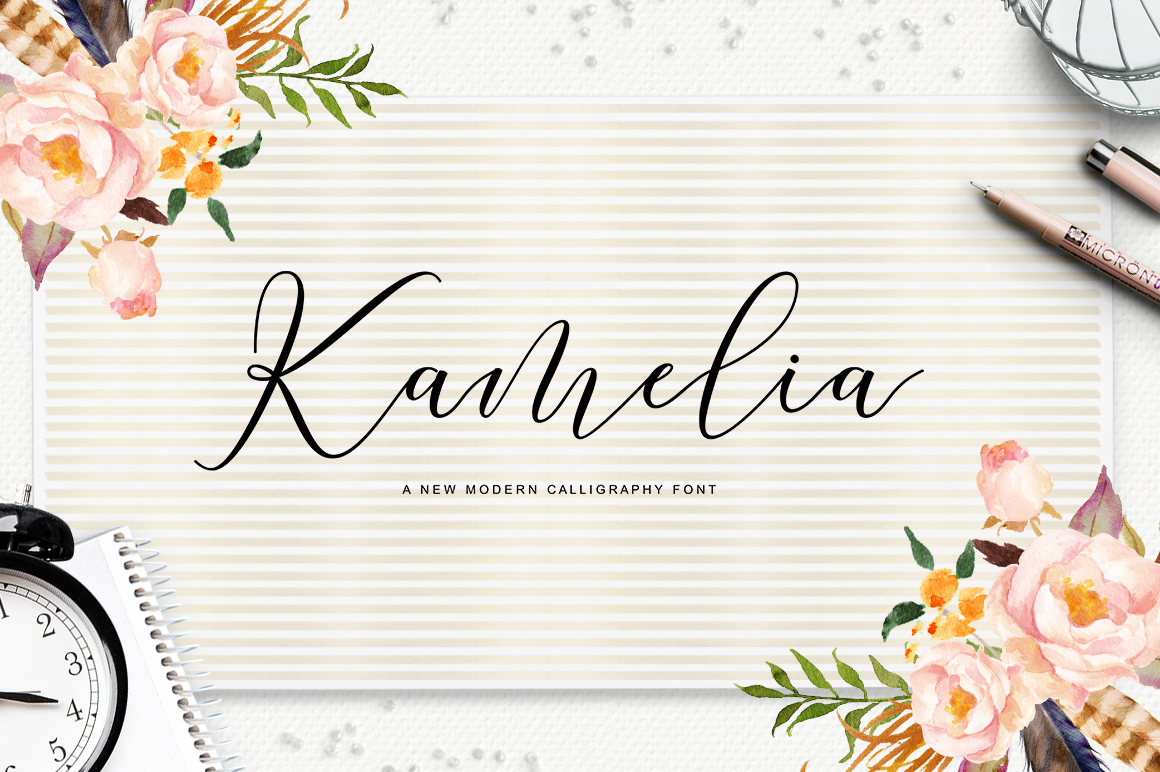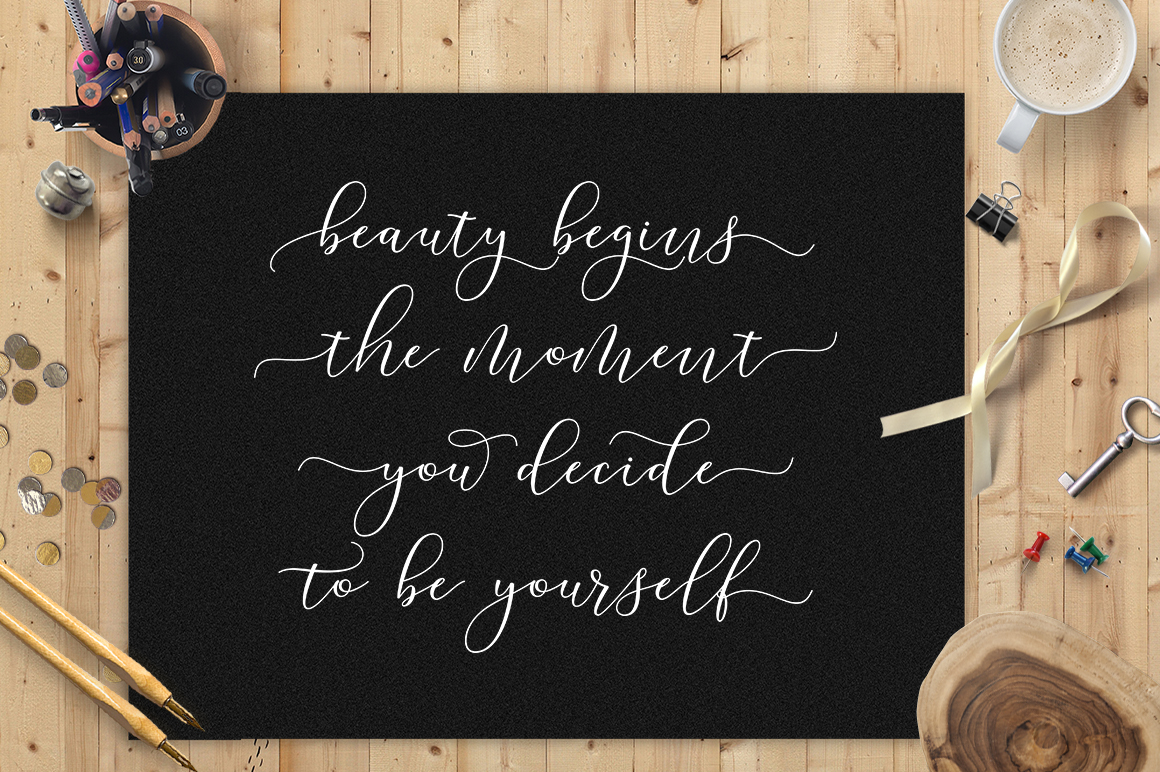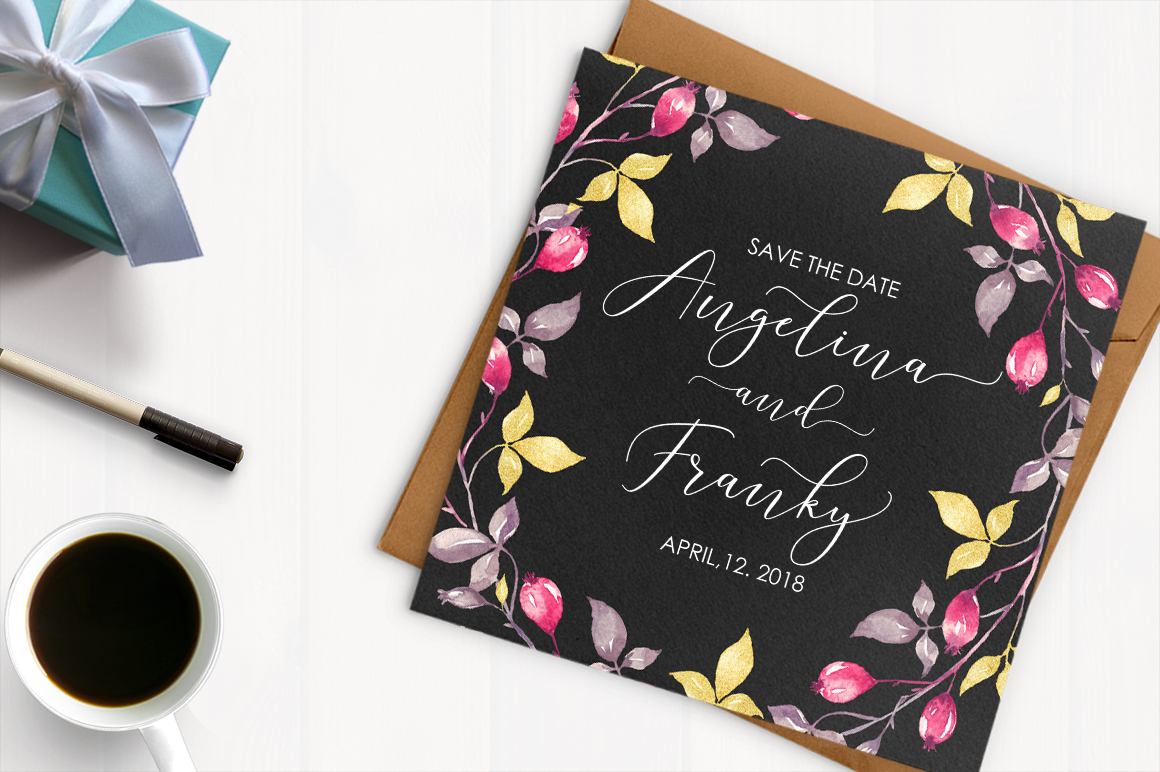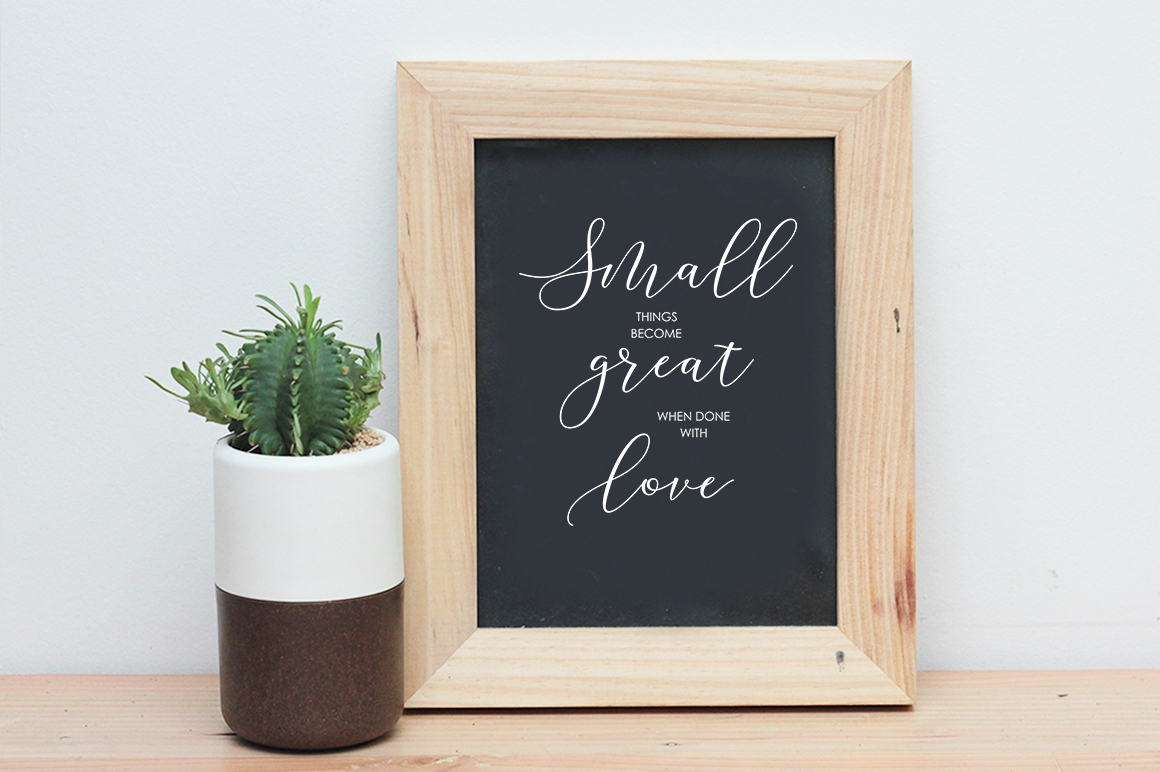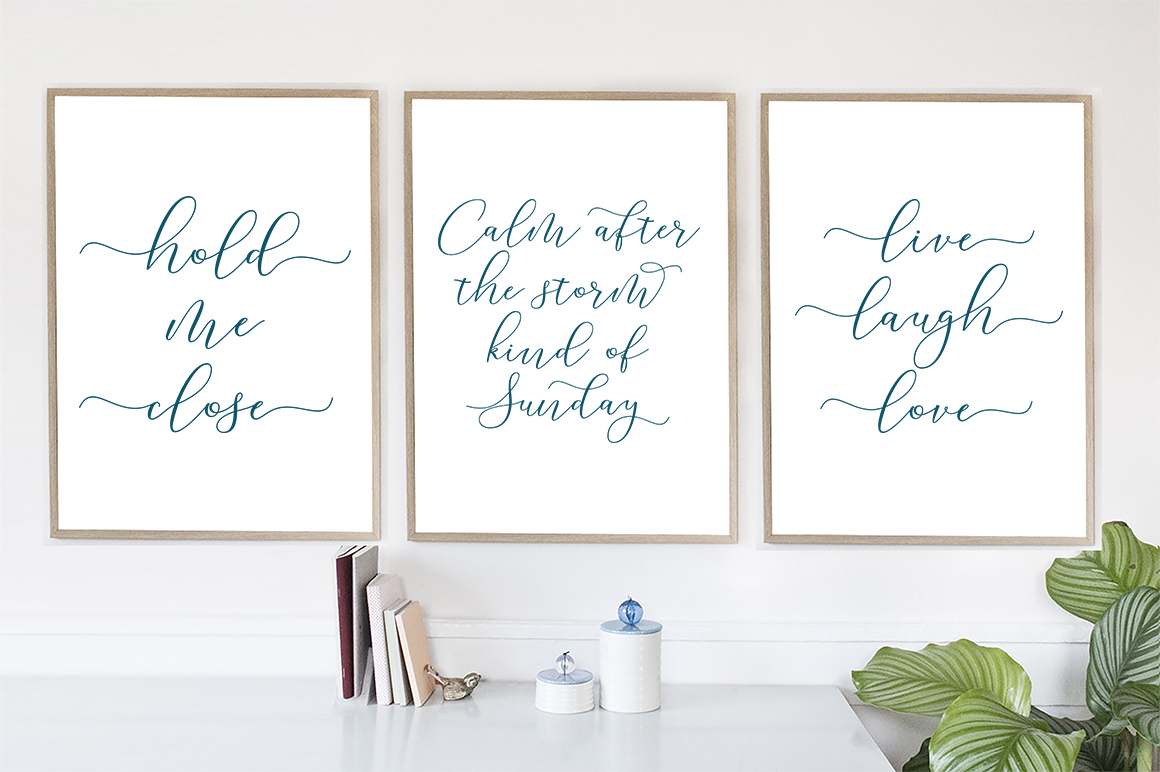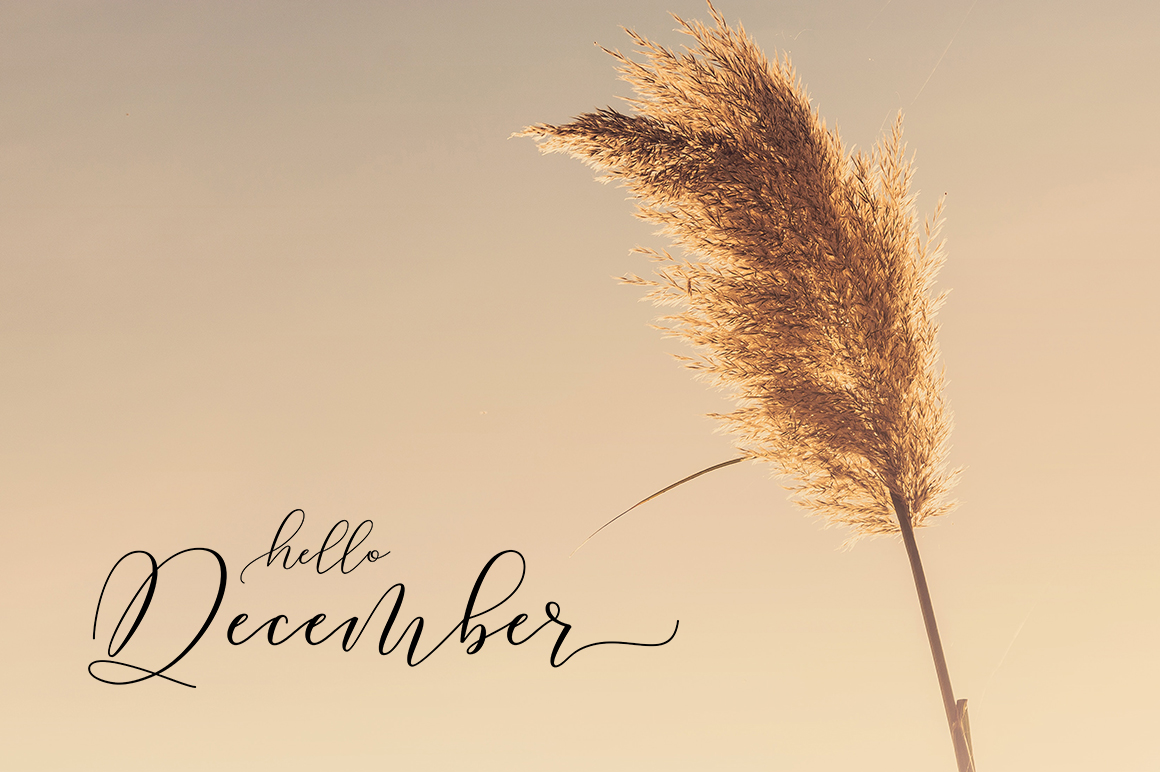
Kamelia Script is modern calligraphy design, including Regular and Bold Script. This font is elegant and pretty with swashes. Can used for various purposes. such as logo, product packaging, wedding invitations, branding, headlines, signage, labels, signature, book covers, posters, quotes and more.
Kamelia Script features OpenType stylistic alternates, ligatures and International support for most Western Languages is included. To enable the OpenType Stylistic alternates, you need a program that supports OpenType features such as Adobe Illustrator CS, Adobe Indesign & CorelDraw X6-X7, Microsoft Word 2010 or later versions.